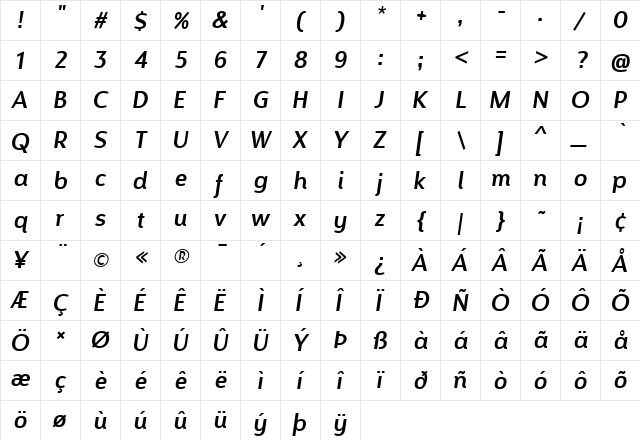
Designosaur Italic
| Foundry | Sergiy S. Tkachenko |
| Designer | Sergiy S. Tkachenko |
Design Context for Designosaur Typeface
Designosaur is a composed and adaptable typeface that performs quietly and consistently across a wide range of design contexts. Its italic angle brings a sense of urgency and motion to the letterforms.
Pro Tip: Try Designosaur for annotation and caption copy alongside an upright companion — the contrast in angle creates a dynamic but ordered typographic system.